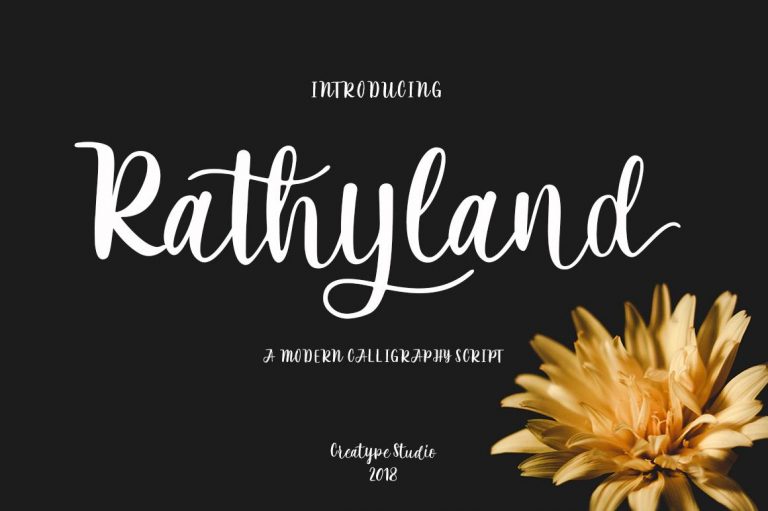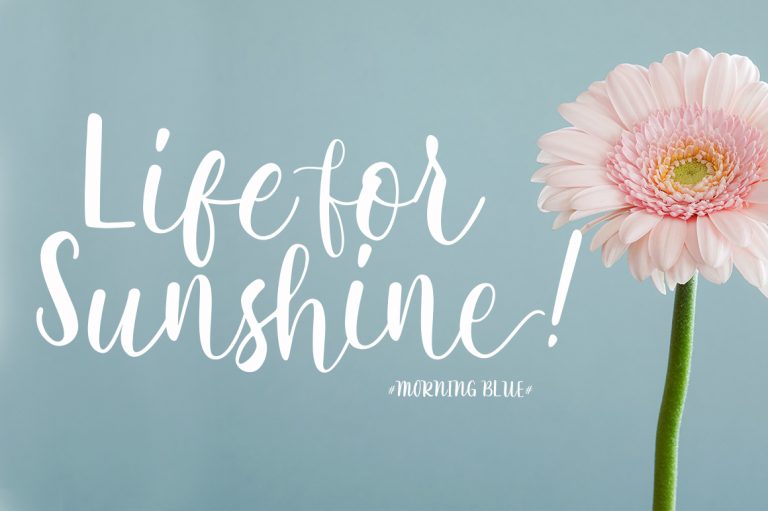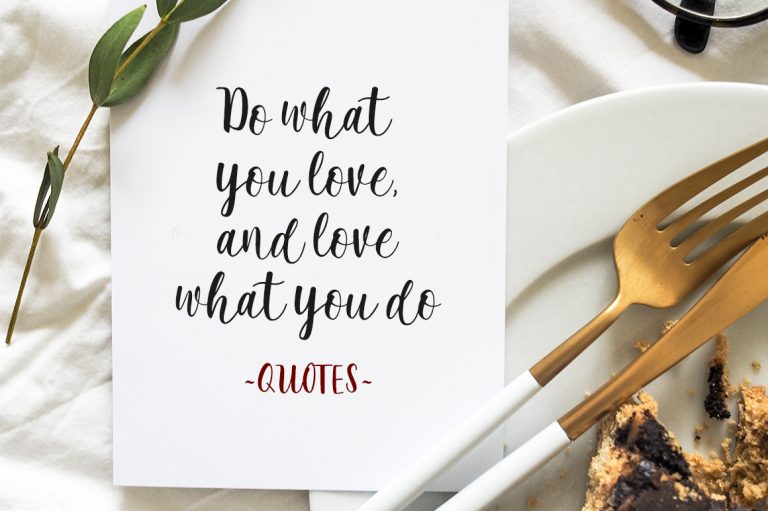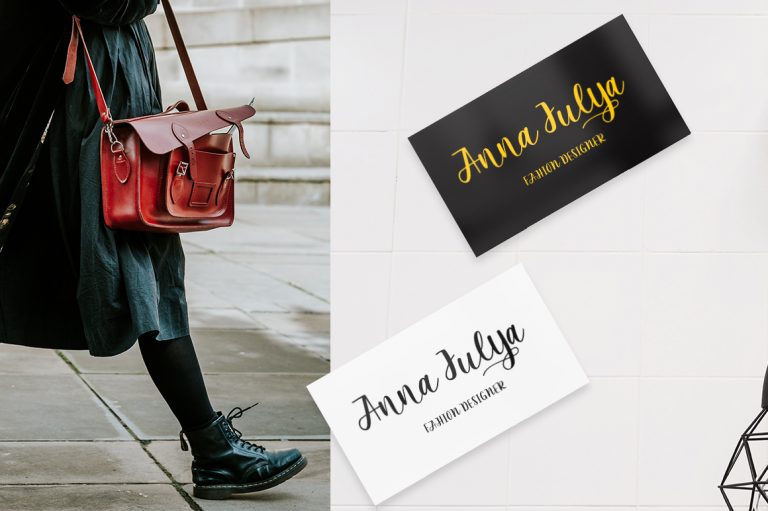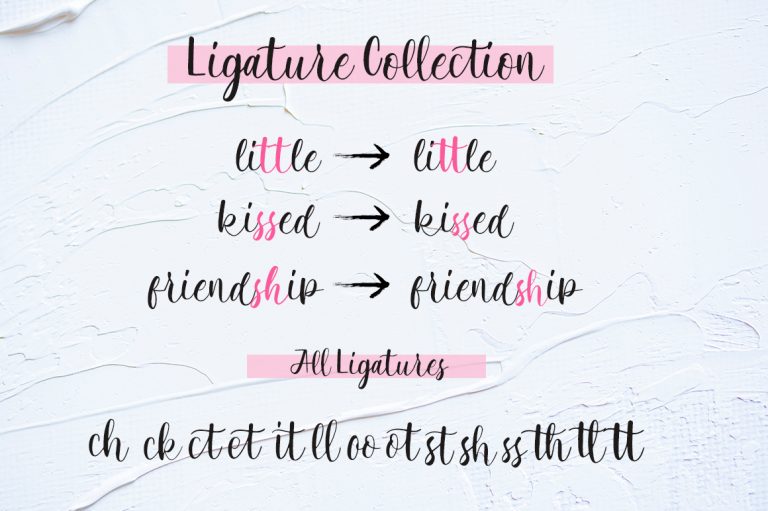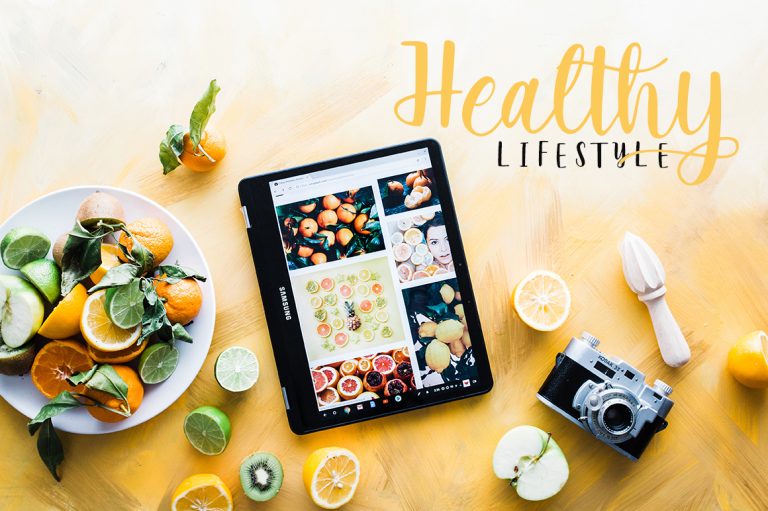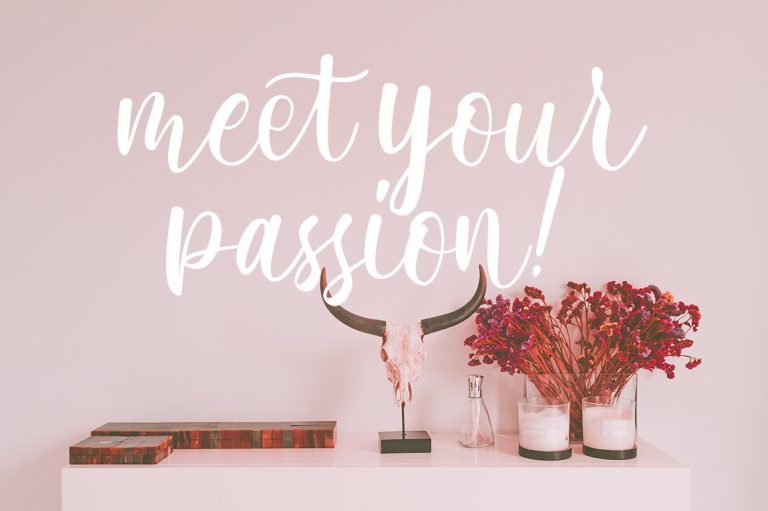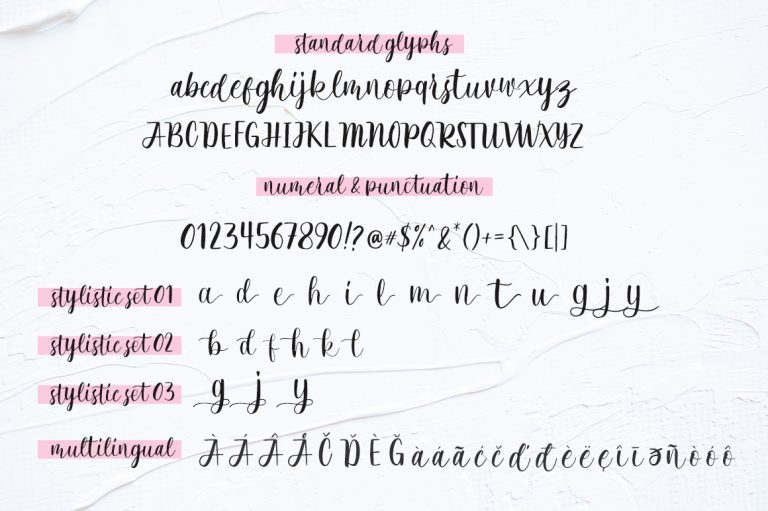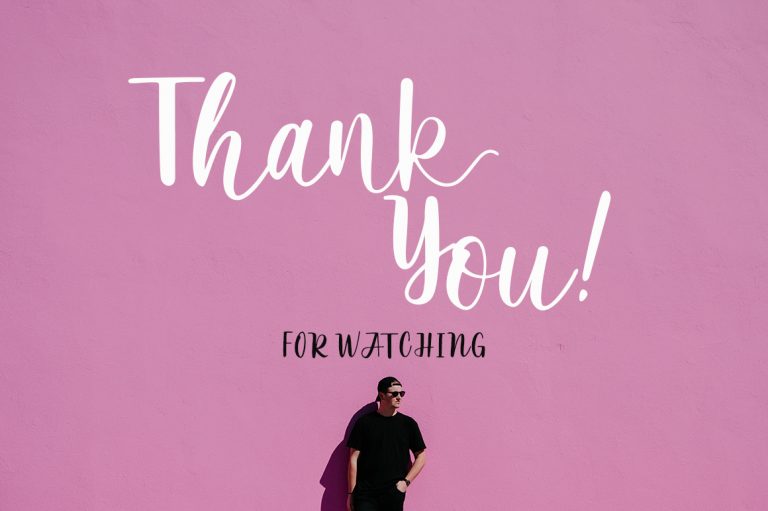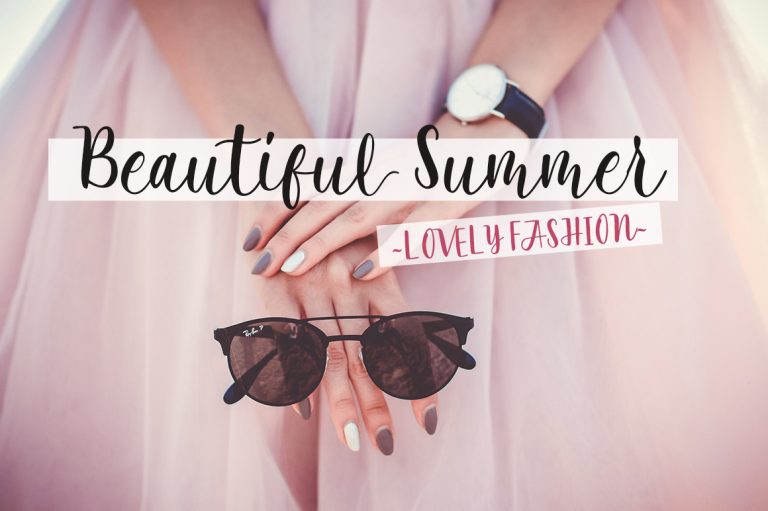
Rathyland is a modern calligraphy script with handwritten style make this font looks stylish, elegant and natural and so perfect for any awesome projects that need handwriting taste.
Rathyland is perfect for photography, watermark, social media posts, advertisements, logos & branding, invitation, product designs, label, stationery, wedding designs, product packaging, special events or anything that need handwriting taste.
- Ton of glyphs (include Uppercase, Lowercase, Numerals & Punctuations, Ligature, Swashes)
- Ligature & Stylistic alternate
- Fonts include multilingual support for; Afrikaans, Albanian, Catalan, Danish, Dutch, English, French, Hungarian, Icelandic, Italian, Spanish, Portuguese, German, Swedish, Norweigen, Polish, Indonesian, Turkish, Zulu
Rathyland Script